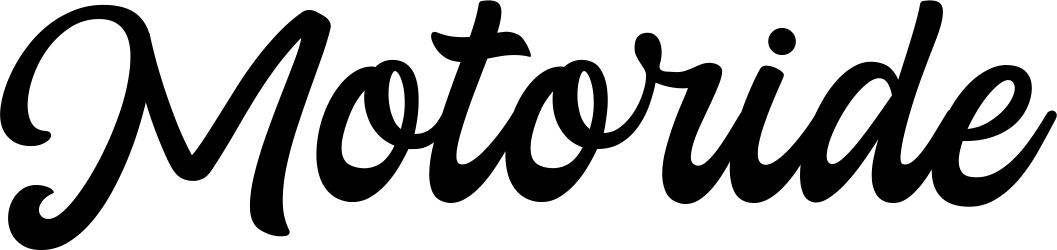
Motoride Font
This script font is a good choice if you are looking, to give your typography a naturalistic, hand-drawn, and old-fashioned feel! The bold characters of Motoride have a cursive style and the results will be equivalent to joint handwriting that looks adventurous.
It’s a mature, casual, and attractive font that is interesting to read. The letterforms that Motoride offers are mixed case A to Z alphabets without any numbers or punctuation. It’s usable for texts, brochures, book covers, and movies.